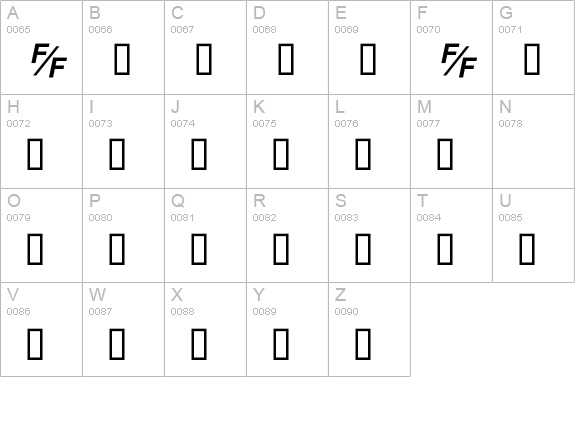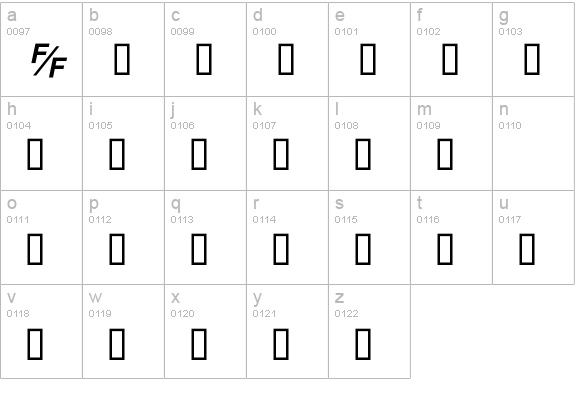
HelvFE BoldOblique Font Details
HelvFE BoldOblique is a striking and stylish font that exudes confidence and modernity. Its bold and oblique design adds a touch of sophistication to any project, making it perfect for headlines, titles, and other attention-grabbing text. The strong, slanted letterforms of HelvFE BoldOblique demand to be noticed, making it an ideal choice for projects that require a bold statement. The versatility of HelvFE BoldOblique allows it to be used in a variety of contexts, from branding and advertising to web design and print materials. Its sleek and contemporary appearance ensures that any text set in this font will stand out and make a lasting impression on viewers. Best of all, HelvFE BoldOblique is available for free download at FontsMarket.com. This means that you can easily access this stylish and impactful font to enhance your designs without any cost. Don't miss out on the opportunity to elevate your projects with the bold and dynamic HelvFE BoldOblique font – download it today and let your creativity shine!